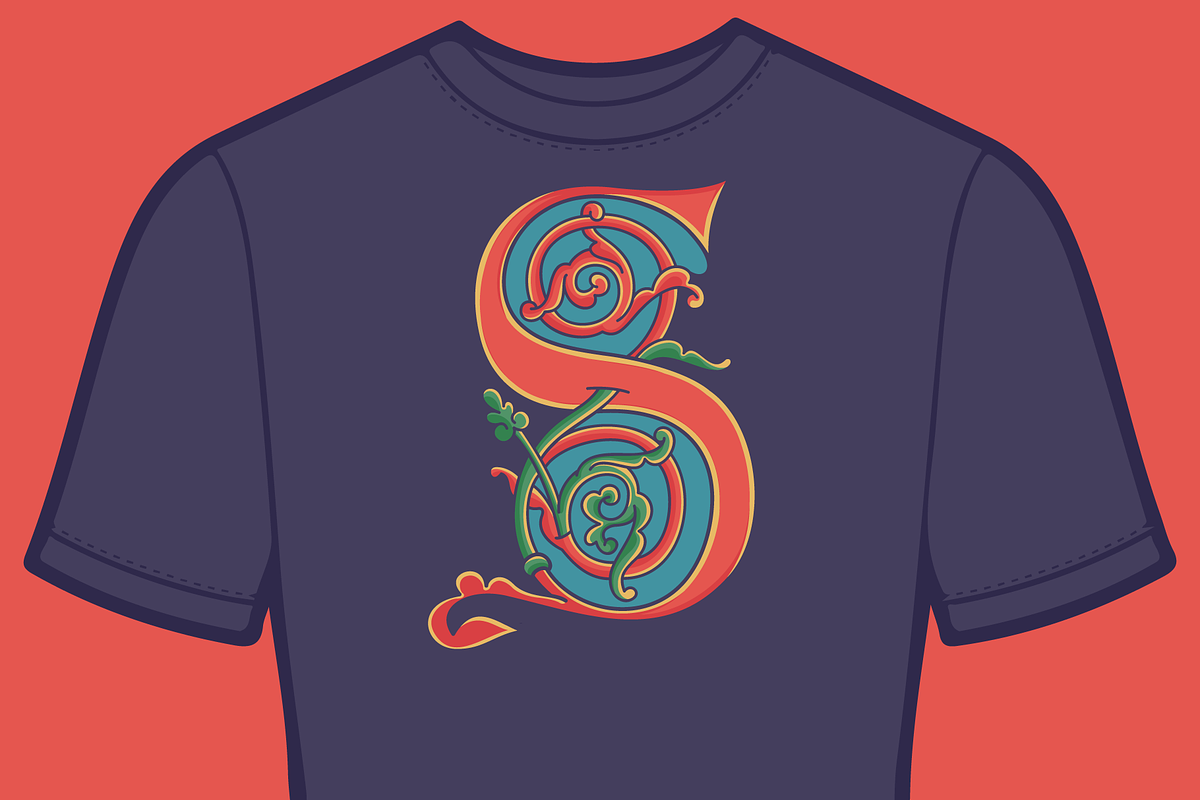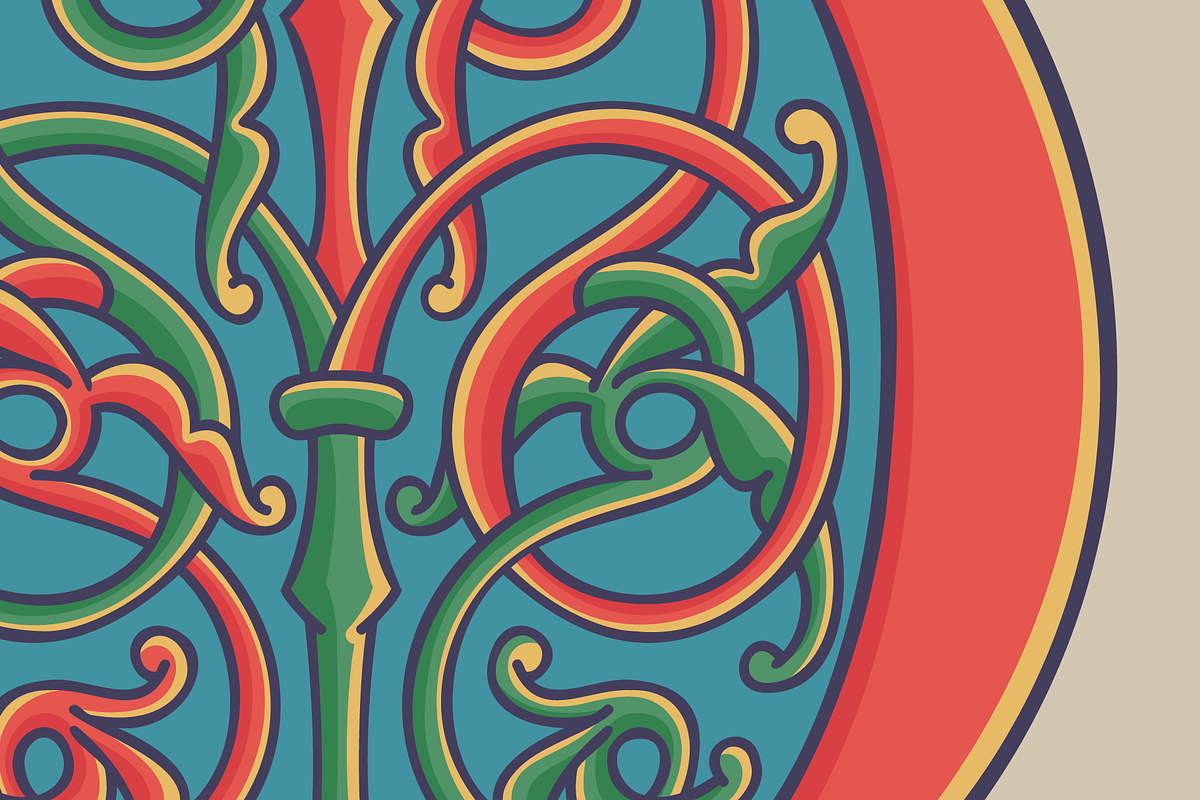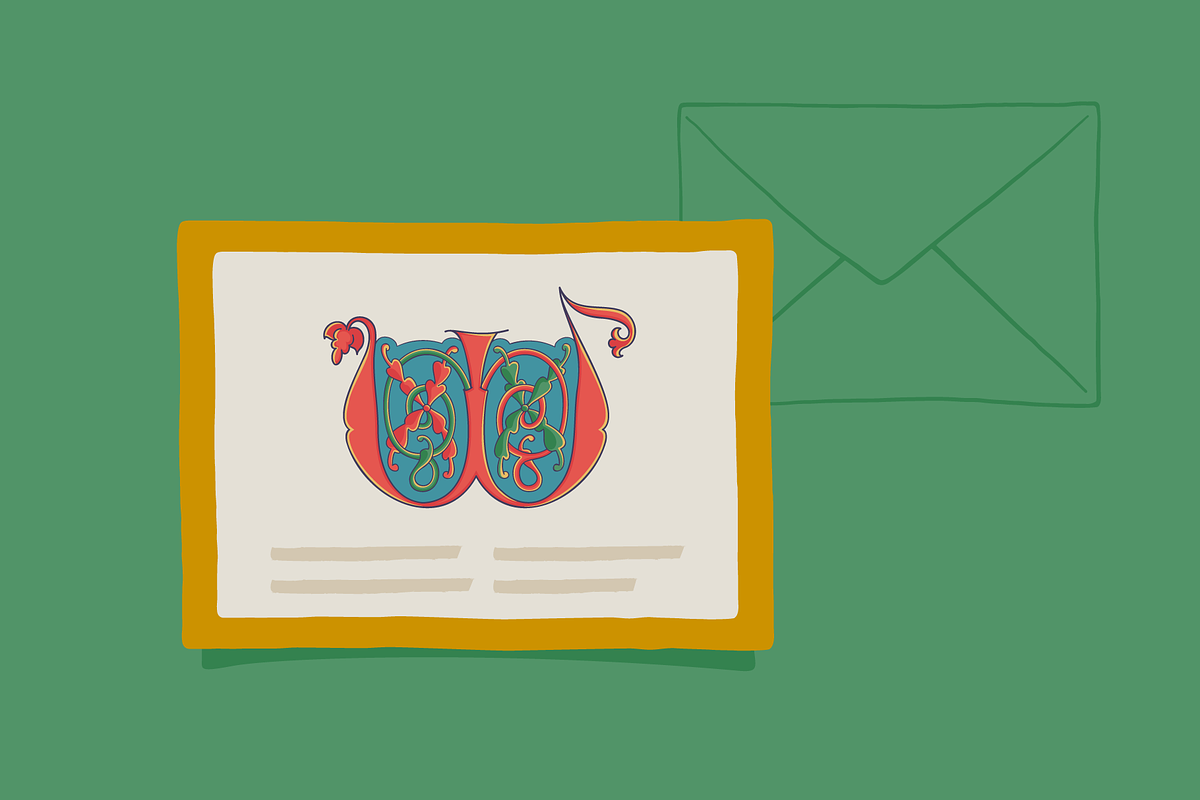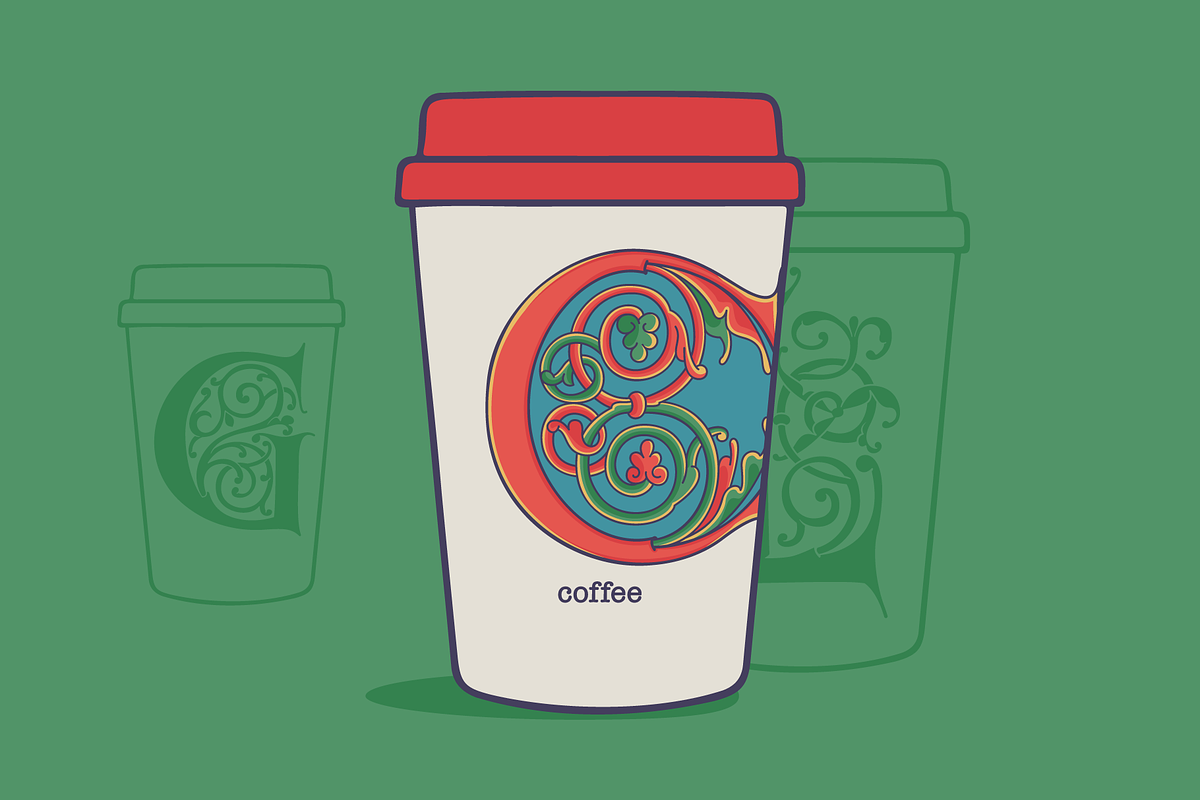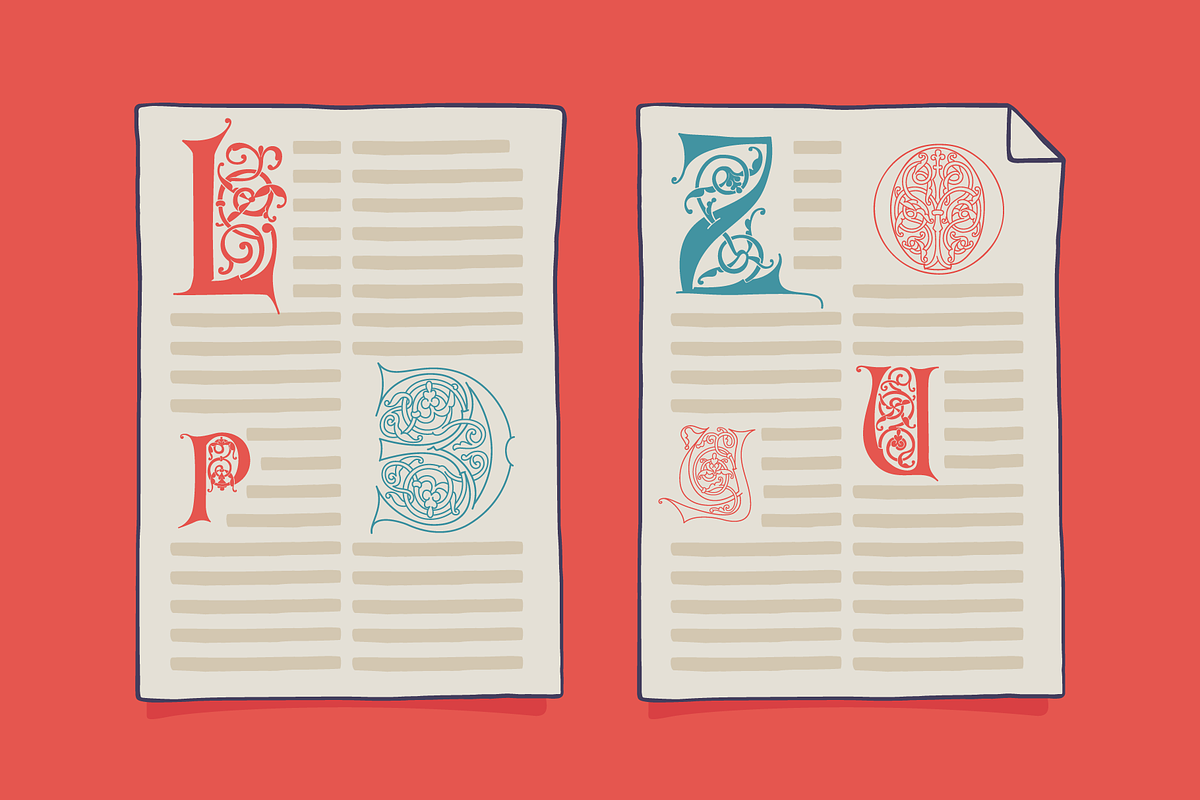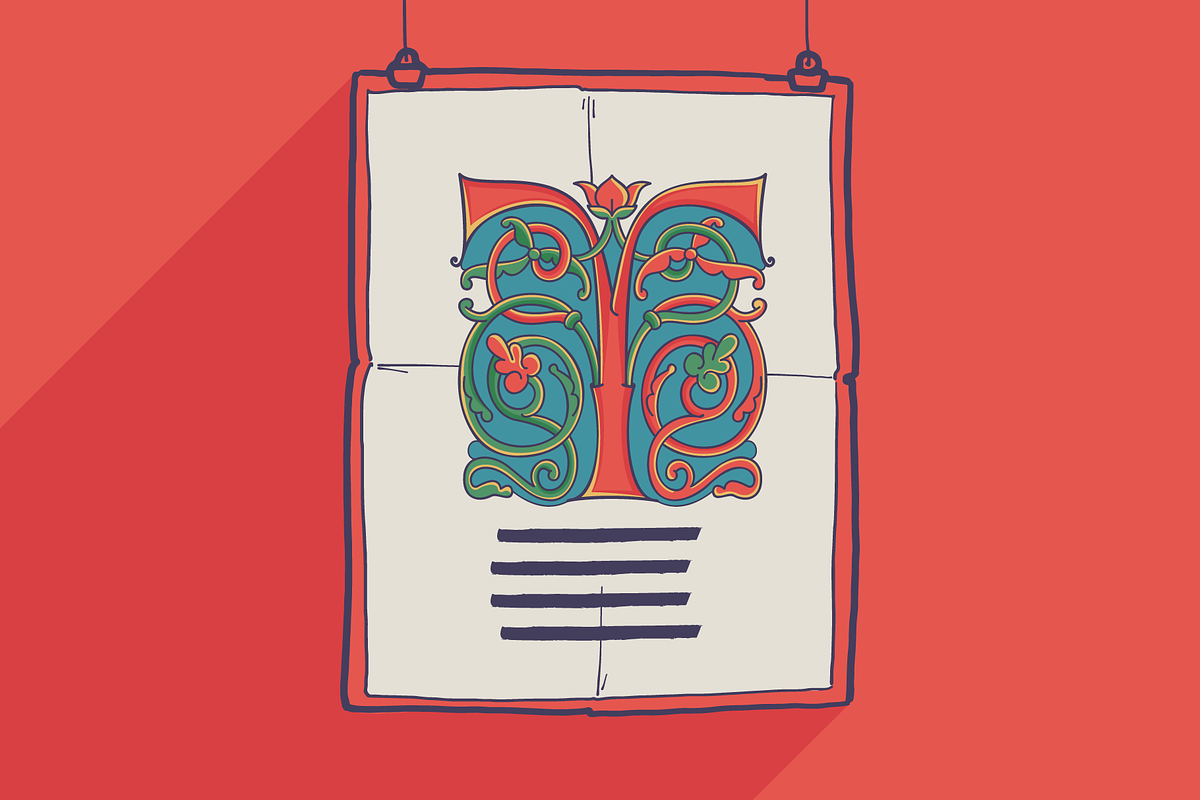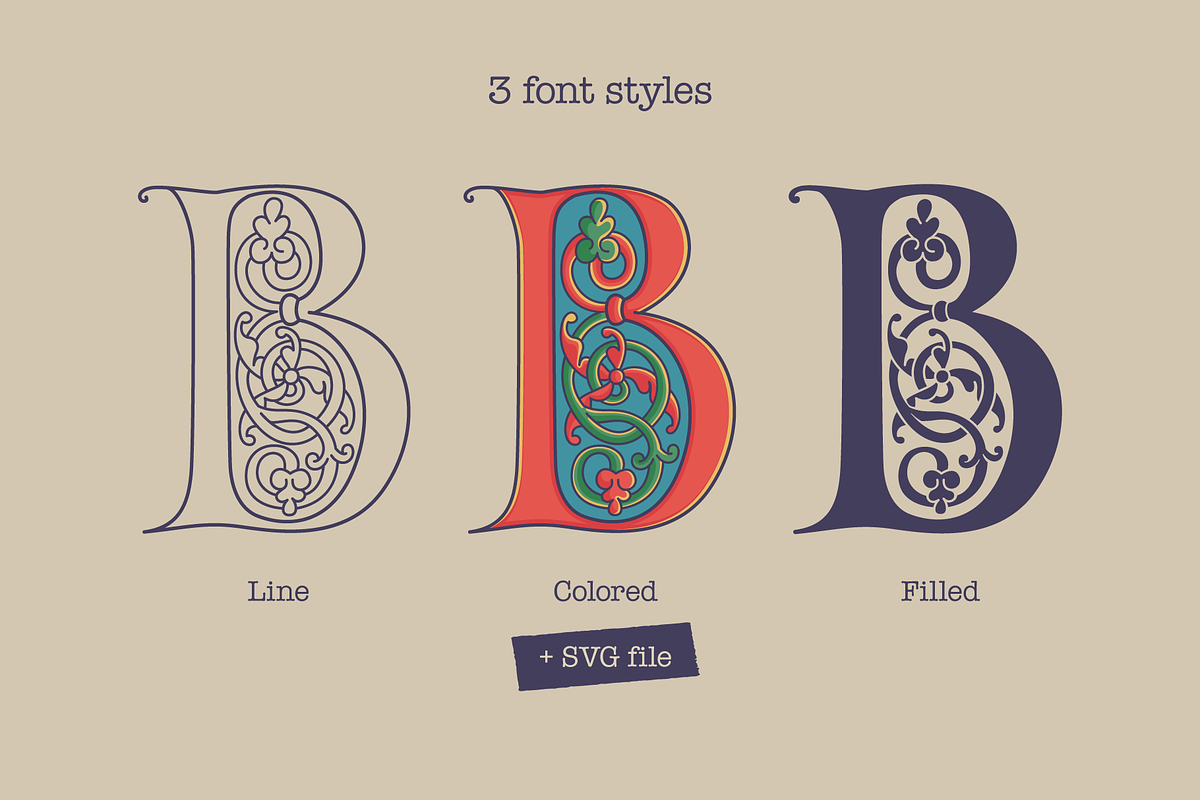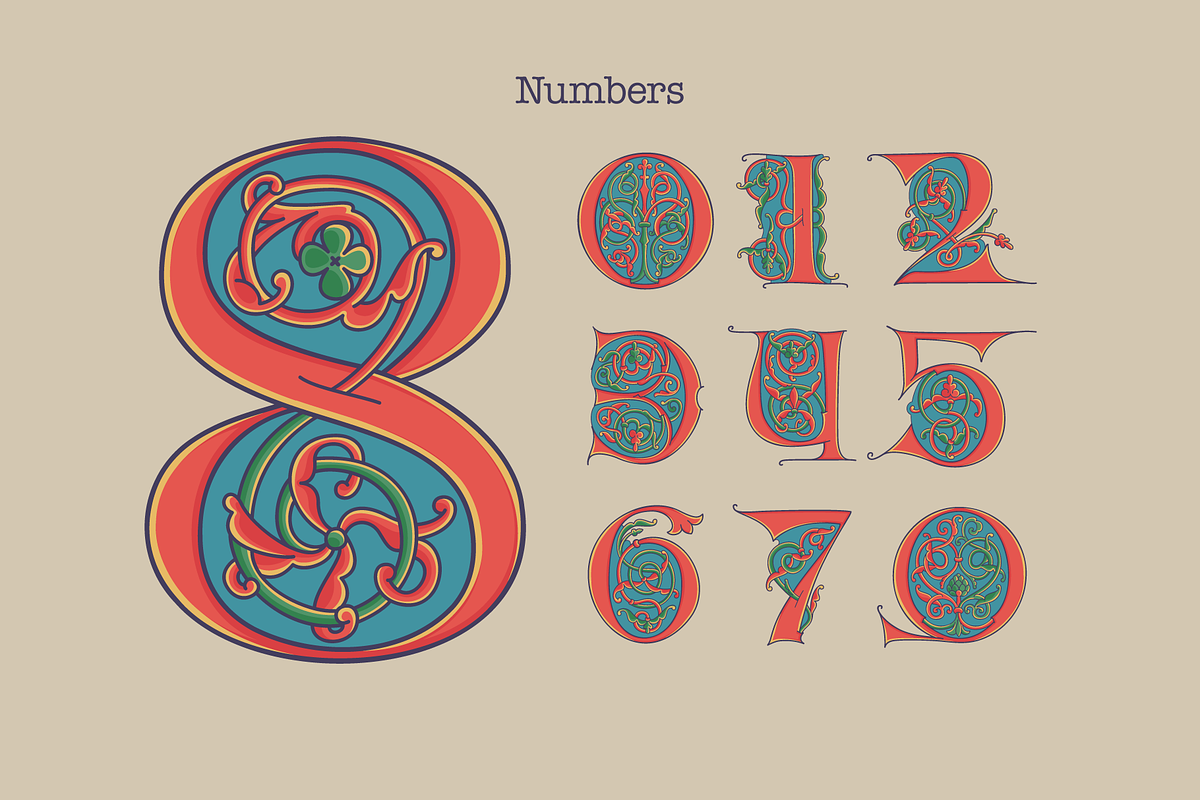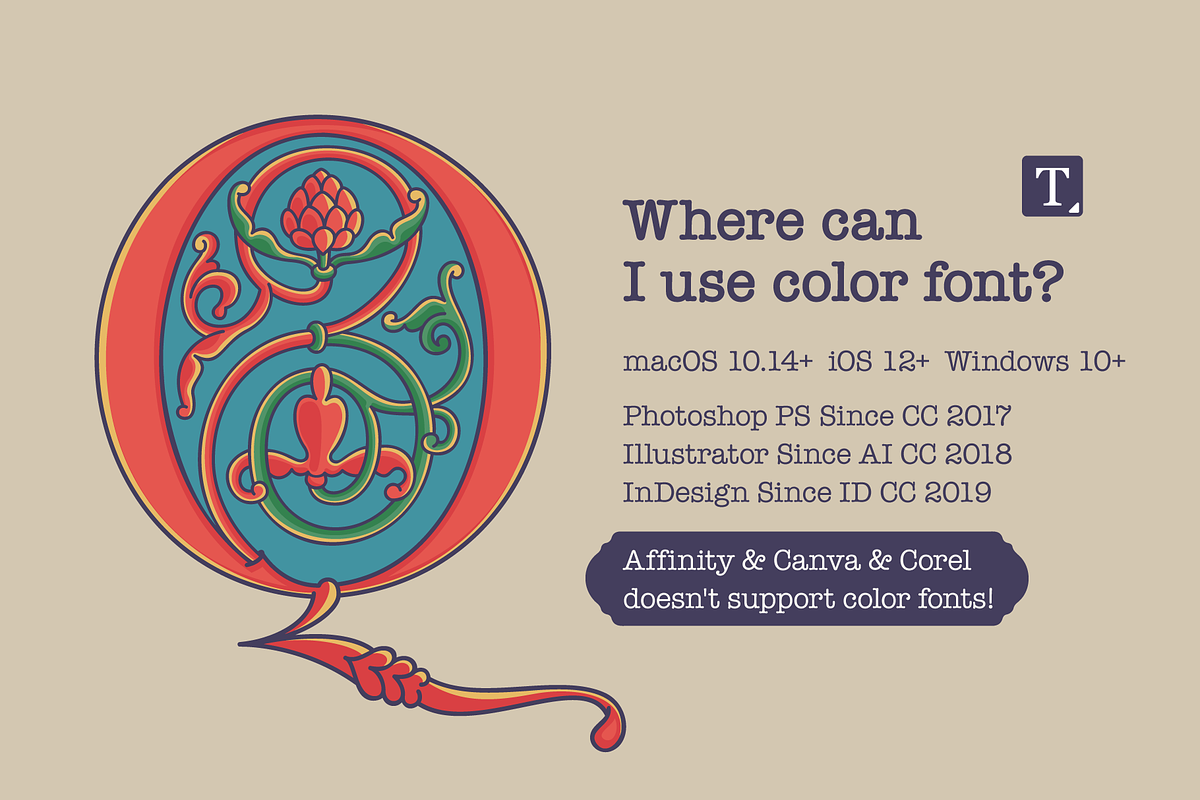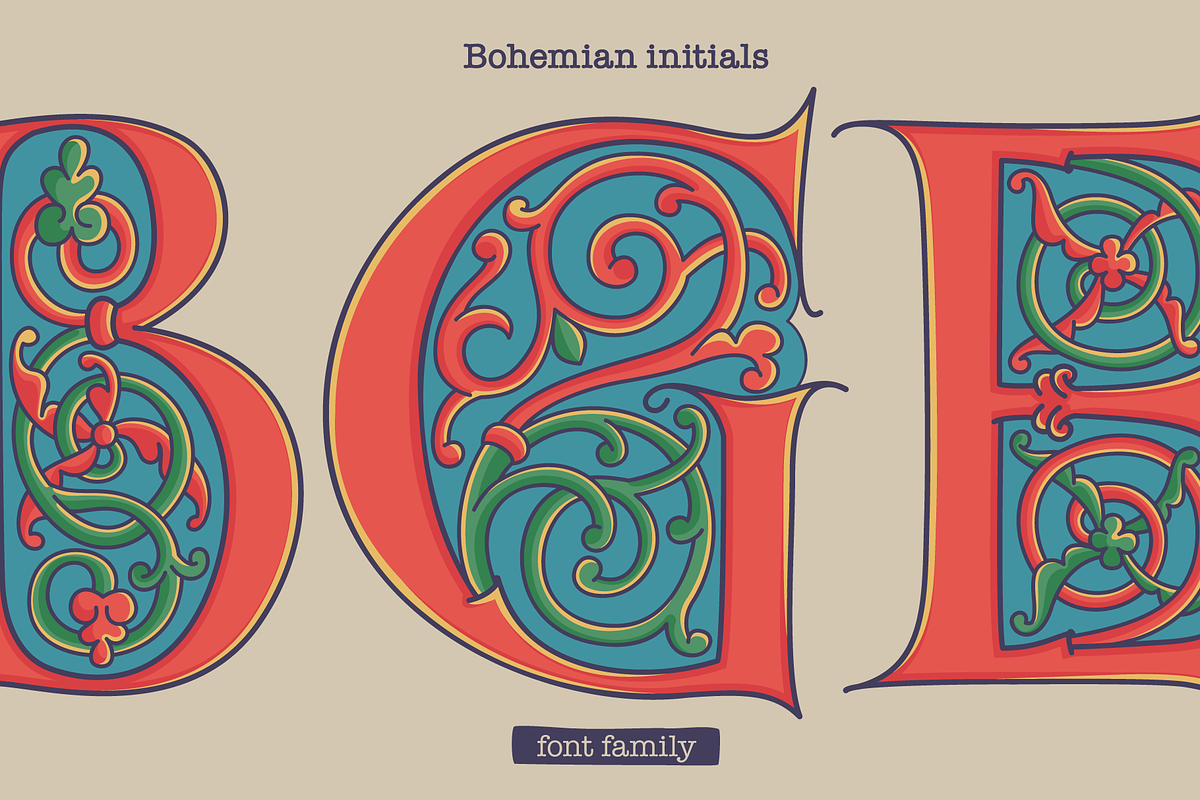
Bohemian medieval initials
I’m happy to present you the Bohemian initials font family. Regular and Colored styles (Uppercase & Numbers) based on Codex Gigas originated in medieval Bohemia. The manuscript has been dated 1230. The elaborate initials are at the beginning of the main texts and their principal divisions.
The painter was aiming to achieve a plastic depiction of the trailing vines of the initials, and he painted with solid colours. He used only four of the primary colours cinnabar red, blue, green and yellow, brightly toned, as well as white accents and contours.
The trailing vines of the initial letters are painted in a decorative, advanced Romanesque style, already bordering on naturalism. The plant taken as the starting point is the acanthus, a thistle-like plant which grows wild in the Mediterranean countries.
The decoration of the Devil’s Bible is not the work of an amateur. Scholars have concurred: it is book illuminations created in Northeast France and Southern England in the so-called Channel style which provided the starting point for the coiled trailing-vine shapes in the initials of the Devil’s Bible.